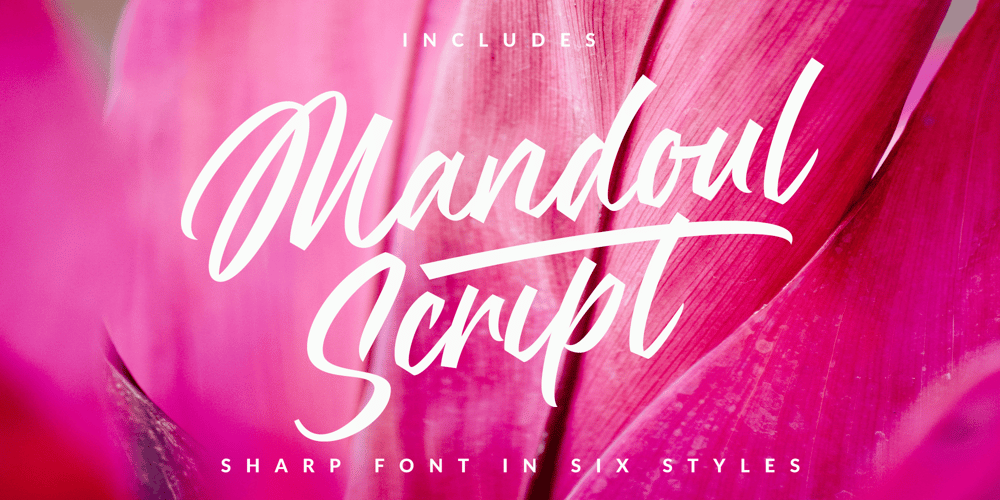
Mandoul Script
Mandoul Script font
Mandoul Script Font Family was designed by Måns Grebäck and published by Mans Greback. Mandoul Script contains 6 styles and family package options. Mandoul Script is a sharp, active calligraphy typeface.With extra attention to quick letterforms and sharp details, this modern typeface turns any graphic project into a strong and confident work. It is provided in six styles, and three thicknesses: Thin, Regular and Bold, and each weight as Italic. Use underscore _ anywhere in a word to create a swash. Example: Hand_scriptUse multiple underscores for different swashes. Example: Bea__utiful (Download required.)Mandoul is built with advanced OpenType functionality and has a guaranteed top-notch quality, containing stylistic and contextual alternates, ligatures and more features; all to give you full control and customizability. It has extensive lingual support, covering all Latin-based languages, from North Europe to South Africa, from America to South-East Asia. It contains all characters and symbols you’ll ever need, including all punctuation and numbers.